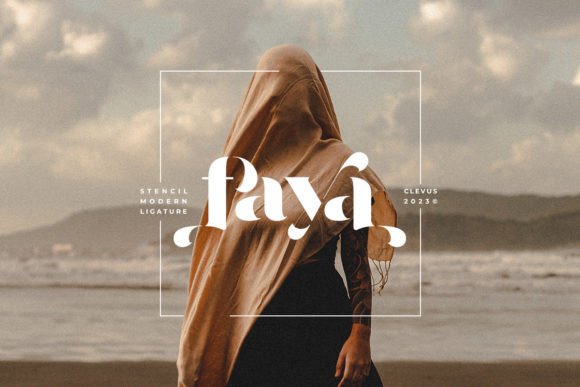
Dive into the realm of visual elegance with Faya Font, a luxurious, modern serif font that weaves a timeless tapestry of classicism and modernity. Created by the masterful font artisans at Clevus, Faya is a sophisticated masterpiece that commands attention in the world of web imagery.
With its bold serifs and heavy strokes, Faya makes a resounding statement, leaving an indelible mark on the digital landscape. Its sharp, clean lines evoke a sense of sophistication and refinement, captivating audiences with its timeless aura.
Uniquely suited for titles, logos, and headlines, Faya shines as a beacon of elegance, elevating your designs to new heights of visual excellence. Witness the enduring beauty of Faya, a font that transcends time, forever immune to the fleeting whims of fashion.
Beyond its inherent beauty, Faya is a font of unparalleled versatility, effortlessly adapting to a myriad of web image styles. Unleash your creativity and explore the boundless possibilities, from bold and dramatic imagery to delicate and ethereal compositions.
With Faya as your creative ally, you'll unlock a world of visual enchantment, transforming mere pixels into captivating narratives that evoke emotion and inspire action. Experience the allure of Faya, a font that ignites the imagination and leaves an unforgettable impression.
With Faya's PUA encoding, accessing the font's full repertoire of glyphs and swashes is a breeze, granting you limitless opportunities for customization and creative expression. Embark on a journey of visual exploration, crafting unique and captivating designs that leave a lasting impact.
Faya Font is not just a collection of characters; it's an artistic gateway, a vessel through which your imagination can soar. As your chosen font companion, Faya will elevate your designs to unprecedented levels of visual artistry. Its timeless beauty, modern styling, and boundless versatility make it an indispensable tool for any design aficionado seeking to leave an enduring legacy in the realm of web imagery.